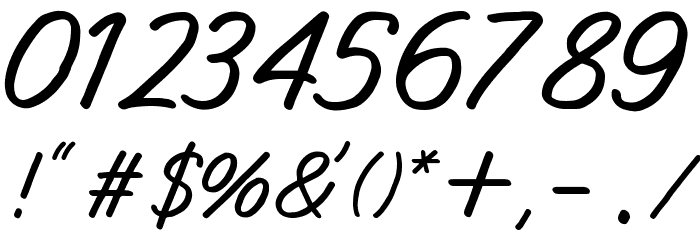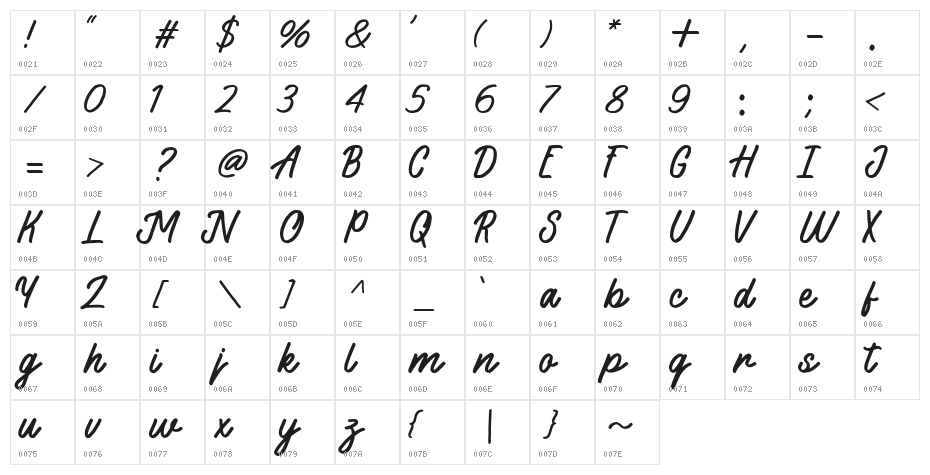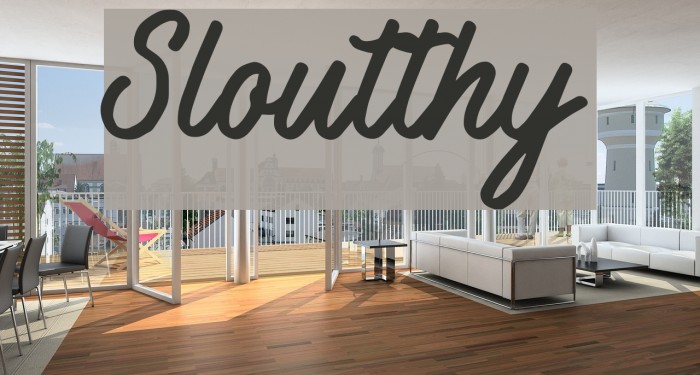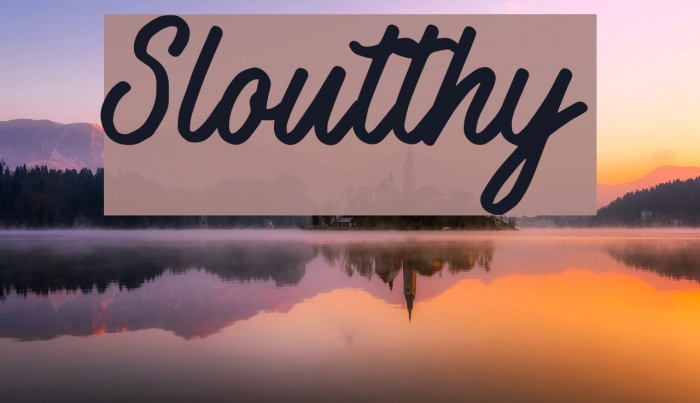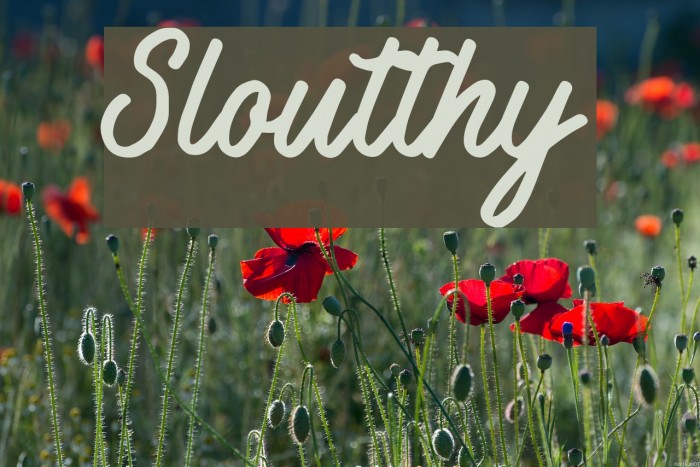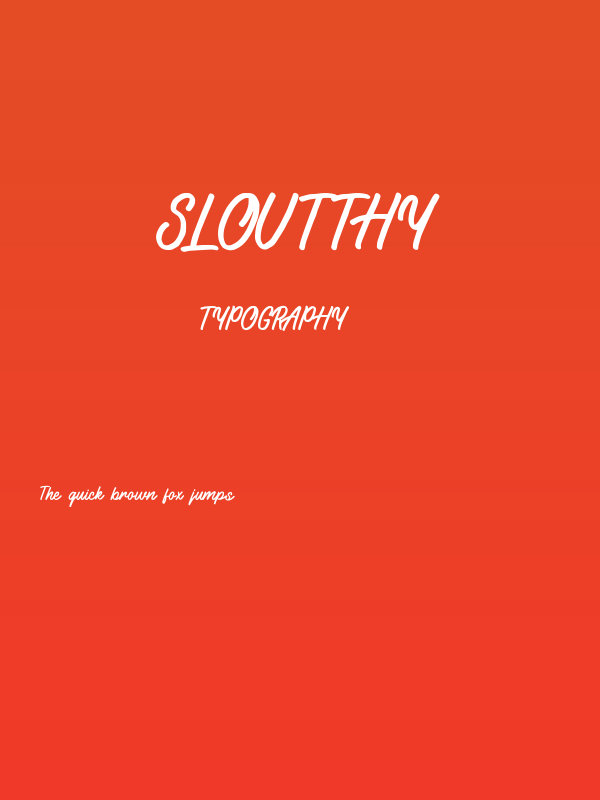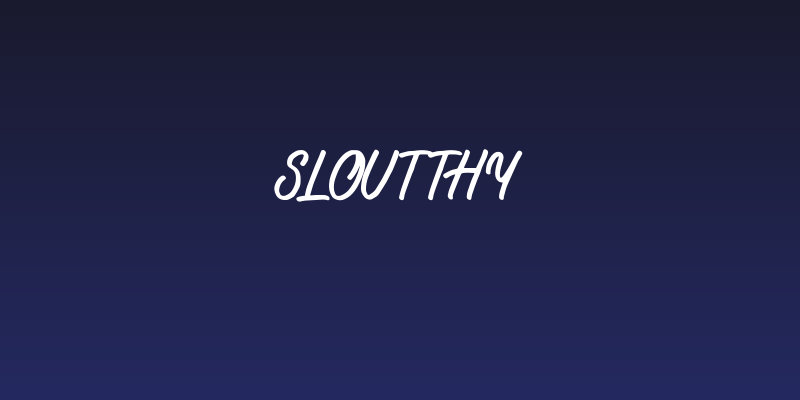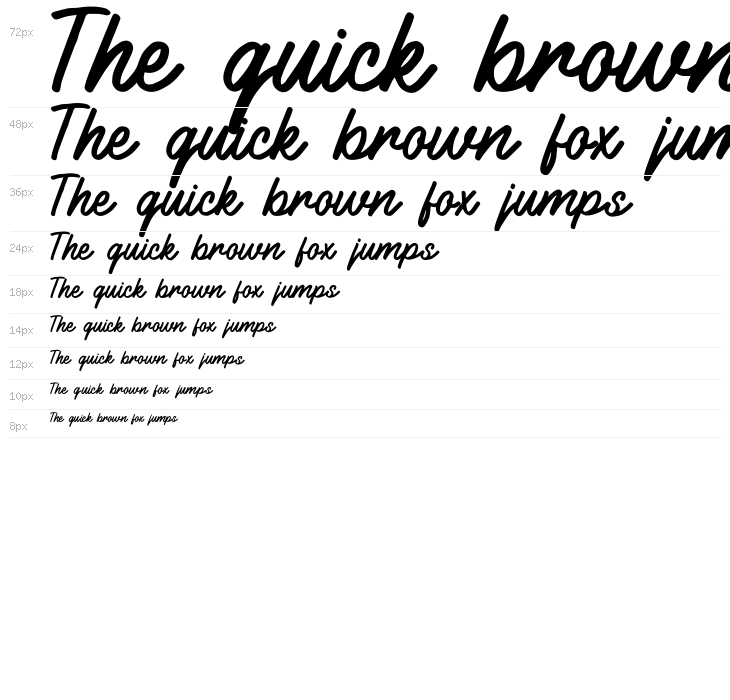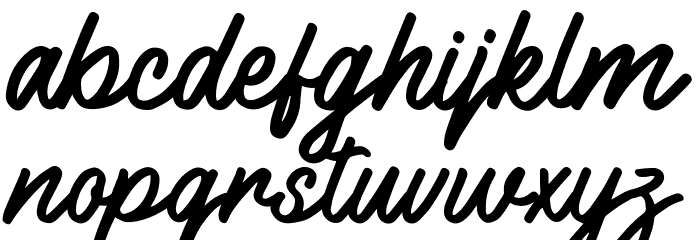
Sloutthy Font
Sloutthy Description
This font features a dynamic and flowing script style, characterized by its smooth, cursive letterforms that convey a sense of elegance and fluidity. The uppercase letters are bold and slightly slanted, while the lowercase letters maintain a consistent, connected flow, enhancing readability. The numerals and special characters are designed to match the script's overall aesthetic, providing a cohesive look. The font's strokes are moderately thick, offering a medium contrast that adds to its legibility without compromising its decorative appeal.
| Proposed Projects | Ideal for wedding invitations, greeting cards, branding, and logo design where a touch of elegance and personal flair is desired. |